12 Frightfully Good Halloween Fonts for Every Creative Project
Halloween is a rare kind of holiday for brands. The kind that allows brands to show their fun, playful, and creative side without the restriction of serious themes or cultural references you have to tiptoe around. Eerie designs, scary themes – you are free to get creative in order to spook your audience. And at the crux of it all? Halloween fonts. After all, we know how important fonts are in design.
But that’s where the real challenge begins! It’s not that you don’t have enough options when choosing Halloween fonts; it’s that you have too many. We get it. That’s why this blog aims to help you shortlist the best ones for your upcoming Halloween designs. Whether they are social media posts or web ads, billboards or flyers, or even event banners, if you are wondering what fonts to choose, here’s a list to begin with.
Spooky Halloween Fonts for All Your Designs
1. Shlop
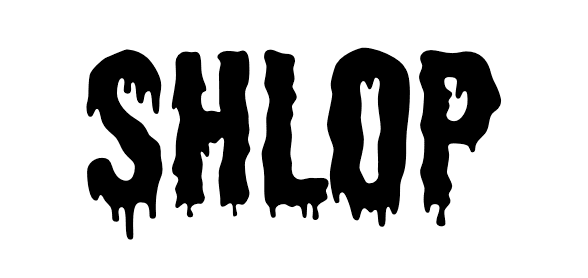
Looking for a grunge display font that instantly makes your Halloween design look bold? Shlop will not disappoint you!
A grotesque texture and viscous drip effect at the base of its letters – this font screams Halloween. It comes in both a regular version for casual use and, if you want to go one step extra, there is also the “Shloppy” version, which is slightly more distressed.
So it makes a great Halloween font to use in social media posts with punchy text or even themed merchandise. But yes, keep it away from formal designs and long lines of text. Because it carries a cartoonish horror vibe and affects readability, especially in smaller font sizes.
Wondering how to make it work? Pair Shlop with a suitable gritty sans-serif font that is simple, clean, and readable.
2. Creepster
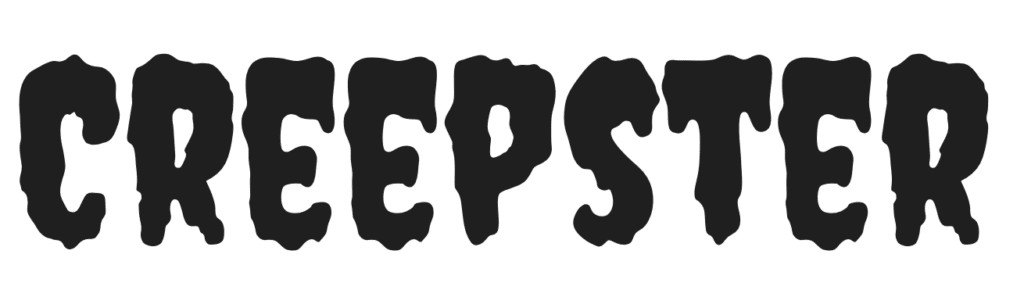
Creepster is one of those Halloween fonts that feel like they crawled straight out of a vintage horror movie poster. Its jagged edges and exaggerated curves give it a bold, playful creepiness.
So, if you are putting together a retro-style Halloween event or if you think vintage themes are the best fit for your campaign, then Creepster is one of the best options. While most decorative fonts are difficult to read, this one scales pretty well without losing too much readability. But yes, avoid using it in tiny font sizes.
Taking all these into account, Jeepers makes a brilliant choice for Halloween packaging, print designs like flyers, and digital designs too. While it is a readable font that can work well even in long lines of text, it can get a little overwhelming when used in excess. To avoid this, pair it with sleek and lightweight sans-serif fonts.
3. Griffy
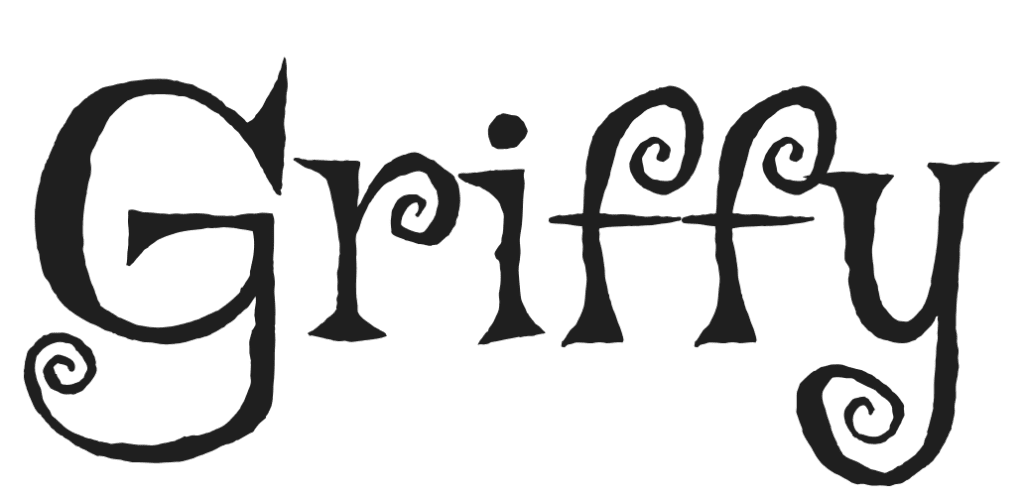
A Halloween font with a fun and bouncy vibe, Griffy stands out with its exaggerated curly serifs. It blends retro with a hint of playfulness and is perfect for brands that do not want to represent a very serious theme.
Monster-themed event invitations, novelty product packaging, social media posts capturing a peppy Halloween theme – Griffy works in many places. So if your brand targets a young audience and if your personality is unconventional, Griffy seamlessly fits into your designs. In short, Griffy is for those times when you want to be spooky without being scary, making it ideal for kid-friendly or family-focused projects.
When choosing the right fonts to pair with this Halloween font, pick ones that feel versatile and grounded. Nothing too dramatic or bold.
4. Nosifer
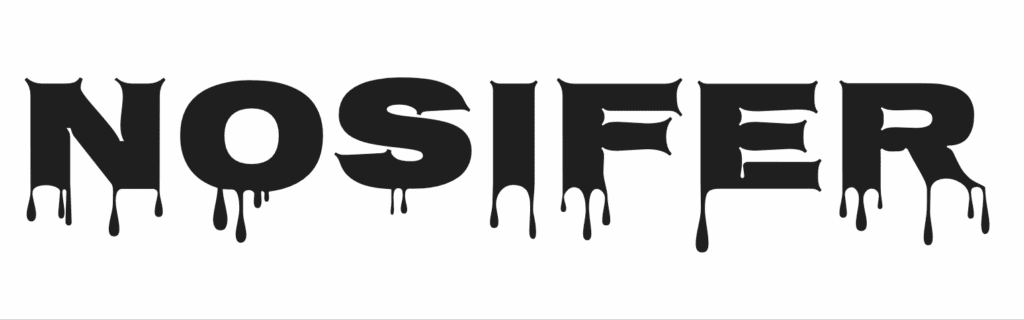
Nosifer is an unmistakably bold display font with drip effects that instantly represent the Halloween theme. Nosifer more or less combines the grunge of Shlop with a more alien, high-contrast digital look.
Being an all-caps font, this one works well in attention-grabbing headlines. Or in video thumbnails, short text overlays in videos, or even event posters for Halloween.
If a bold, edgy, and gothic style captures the spirit of your brand, Nosifer is one of the most impactful Halloween fonts for you. Given Nosifer’s intense visual presence, pair it with clean, neutral fonts to maintain readability and visual balance.
In short, use it in portions of your design meant to act as focal points because when you overuse it, it makes your design too loud and distracting.
On a final note, use ample negative space around Nosifer so that the rest of the text and other design elements do not interfere with the dripping texture of the font.
5. Irish Grover
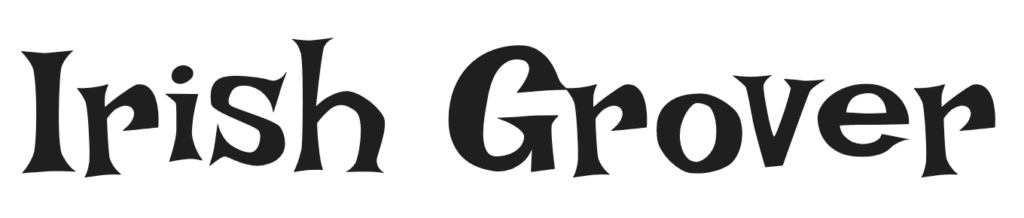
A fun font with squiggly letters, Irish Grover feels like hand-painted signs from a vintage carnival. There’s an unexplained energy about this Halloween font that can instantly uplift your design.
The letters often bob and weave slightly on the line, giving the text a hand-drawn appeal and infusing dynamism into your text. Unlike Nosifer or Shlop, Irish Grover maintains excellent legibility, making it effective for posters that need to be read at a distance.
But yes, like most others on our list so far, this one is for Halloween designs meant to capture playful horror rather than serious, eerie moods.
So, where can you use Irish Grover? Website and email headers, digital ads for Halloween campaigns, seasonal menu items on a restaurant menu, product labels for Halloween limited-editions, and more.
In short, Irish Grover works well for brands focusing on a broad audience who appreciate classic, accessible Halloween designs, rather than extreme horror.
But yes, remember that this font loses its personality and can appear cluttered at small sizes. Use it exclusively for large titles and headings.
6. Eater
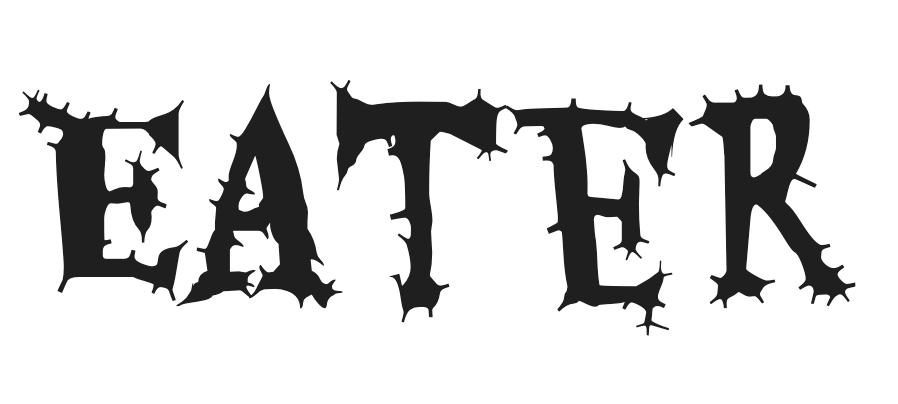
One of the best ways to describe the appearance of Eater would be “aggressively distorted”. If you want to create a design that’s absolutely terrifying, Eater is one of the boldest Halloween fonts you’ll find.
Its unprecedented texture surprises the readers, and that’s what makes this font unique. The edges of the letters are covered in menacing, sharp points resembling thorns or barbs.
But it’s the font’s extreme detail and distortion that render it almost completely illegible at small sizes. So stick to choosing Eater for headlines meant to capture attention with an element of shock.
Eater can be a good choice for fashion brands that love to make a bold statement and mostly suits a mature audience who like distressed, or underground metal/punk aesthetics.
As you can see, its textures are what make this font special. So avoid using it on busy backgrounds and crowded designs.
7. Butcherman
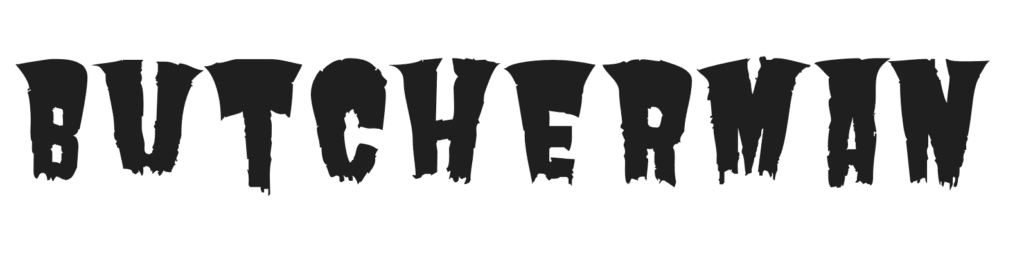
Google describes Butcherman as a “zombified display font”, and there’s no better way to put it! This chilling Halloween font has a dramatic weight and a strong character that’s hard to ignore.
The letters are tall, blocky, and completely irregular. Their deep, vertical cuts and jagged, dripping edges give them that spooky twist. On the whole, it has an imposing presence that makes it a fantastic option for headlines.
Given its unique character, it can be used in logos for Halloween events, bold graphics designed to promote these events, like banners meant to grab attention, or even personal event invitations mailed directly to customers. This one again is not for the family-focused niches but rather for audiences who appreciate classic horror styles.
Avoid adding extra textures or even color gradients to this font since it carries a lot of personality on its own. Instead, pick the right colors that complement it. And keep the rest of the design clutter-free.
8. Rubik Distressed
The Rubik font family, but with a visible distressed texture, Rubik Distressed has a raw, weathered appeal. If a Halloween font that’s imperfect and gritty feels like the right choice for your brand and your designs, then this font is a great choice.
While it suits most vintage themes, in terms of its horror appeal, it’s all about subtlety. There is chaos, there’s broken texture, and a strong character that fits easily into most Halloween themes.
As for its core personality, the font carries the contemporary style that the Rubik font family is known for. Its geometric letterforms enhance its readability despite the heavy texture.
Product packaging, heading text on images, website hero text, social media video thumbnails, and carousel post titles – Rubik Distressed is a versatile choice that works in various applications.
Brands that find grunge style relevant, streetwear fashion brands, and designs that call for an aggressive, urban theme will all find Rubik Distressed to be a great Halloween font.
Since this is a heavy font, to create visual balance, use slim fonts and monospace fonts, and allow enough breathing room around the text to ensure that the dramatic appeal of the font stands out.
9. Democratica
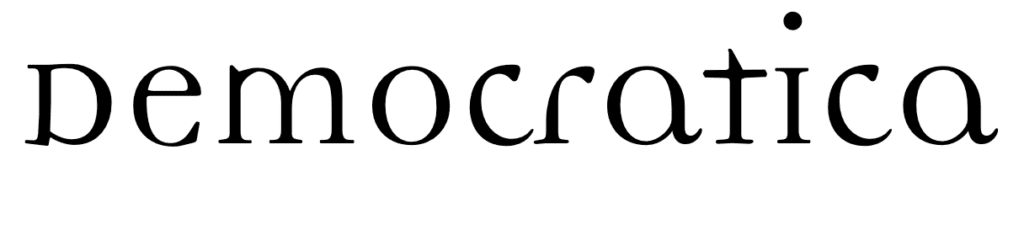
Not your typical “scare-inducing” font, but Democratica is known for its distinctive, almost broken or eroded serif style. Stunted serifs, high contrast strokes, a vibrant chunky and impactful font, Democratica is great for brands known for a slightly formal tone.
Without being overly spooky or quirky, this font works well in a luxury Halloween cocktail menu or in the event invitation and posters promoting a brand known for its sophisticated style. In short, if you wish to preserve an upscale theme and still hop on the Halloween trends, this feels like a unique choice. A fresh twist from the eclectic textures and dramatic serifs that most other Halloween fonts carry.
To preserve the distinctive elegance of the font, pair it with dark, moody photography or metallic textures for a sophisticated Halloween tone. Most importantly, avoid using it in small body text. While it does maintain readability, big font sizes demonstrate the bold nature of the font better.
10. Metal Mania
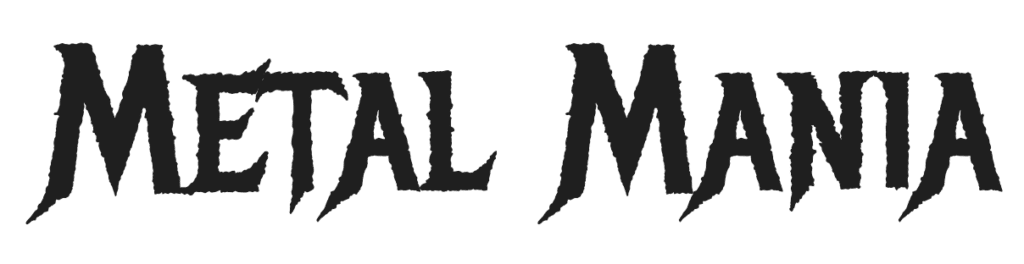
Another Halloween font that is not too loud but manages to silently steal the show in eerie themes is Metal Mania. As the name indicates, it carries that grungy heavy metal vibe.
Distressed effect, a creative twist to the serifs, all-caps letters, Metal Mania is all about adding drama to your design. It shines with its bold yet legible letters and feels like a mix of modern and vintage.
Metal Mania is suitable for use in digital or printed stickers, title screens in teaser videos for your Halloween campaigns, and bold call-outs on landing pages. Like many other bold and textured Halloween fonts on our list, this one too exhibits its flair when used in big font sizes rather than small.
So, for high-energy brands looking for a suitable Halloween font that grabs attention, Metal Mania works.
A word of caution: do not place the text on a cluttered background or with another font with a strong personality. Also, pay attention to the color contrast between the font and the background. You do not want poor contrast to dilute the effect of this font.
11. Talon
Do the strong and sharp features of Talon remind you of a bird claw or a vampire’s fangs? You are not alone. Talon has that subtle gothic horror movie appearance, which becomes more evident when you combine it with the right Halloween symbols and colors.
With its slim and tall letters, it has an inherently modern tone and also feels like a good fit in designs meant to carry a minimalist theme.
One thing to note, however, is that some of the characters in this font are hard to distinguish from each other – like the “O” and “N”, for instance. Keep this in mind when finalizing font sizes. You do not want Talon to appear in tiny sizes where the readability vanishes.
Keeping this in mind, use Talon in event posters, Story Posts where attention-grabbing fonts are a must-have, logo design for Halloween event branding, book covers, or promotional graphics designed for the digital landscape.
As for font pairing, considering the slightly angular and rigid nature of Talon, avoid combining it with other rigid angular fonts to avoid creating monotony.
12. Scary Skelly
Scary Skelly is a decorative font that looks fun and vibrant, perfect for Halloween designs. It’s an evident choice since it leans into the “skull/bones” spooky doodle aesthetic.
This is the kind of font you use when you need something that’s not seriously spooky yet packs a fun Halloween flavor. The all-caps letters with the slight bounce give this font a slightly handwritten feel.
On the whole, this font is ideal for audiences that want a fun, festive Halloween design without the extreme horror or gore. It works well for brands targeting a family audience.
Apply it to the headings in your Halloween party invitation or give your website homepage a Halloween makeover that does not look too grim. There are many ways in which you can use this Halloween font.
Since it already has the skeleton details in it, avoid adding too many icons around it that can distract users from the text or create clutter.
Halloween Fonts: A Few Quick Tips for Better Typography Decisions
Usually one. Use a single decorative Halloween font for the headline and let the supporting text be clean and neutral. Two spooky fonts almost always clash with each other and cancel out their benefits.
Yes, but choose subtle ones like high-contrast serifs (Democratica) or distressed sans (Rubik Distressed). These deliver mood without feeling out of place. Stay away from loud “dripping blood” fonts like Shlop or even Eater. So yes, knowing what fonts to avoid is as important as knowing what to use.
Only if the base font is simple. Many Halloween fonts come pre-textured and with stylistic details; adding more effects can ruin the clarity and cheapen the look.
Use spooky fonts for the fewest words possible and let body text be clean. Contrast is key, either light on dark or dark on light. Never mid-tone on mid-tone.
Solid backgrounds or subtle grain or gradients work far better than busy photography. If using photos, darken or blur them first so the font still reads cleanly.
Create Fang-Tastic Halloween Designs With KIMP
As you can see, the options are plenty. It all boils down to identifying the best fit for your brand. Most importantly, the right choice that complements the overall theme and aesthetic of your Halloween ad or post. An experienced designer’s perspective comes in handy when making such decisions. And as you know, a dedicated design team can give your holiday marketing a boost. So, what are you waiting for? Sign up for KIMP today to unlock your dedicated design team and tackle your promotional graphics for this holiday season like a pro!